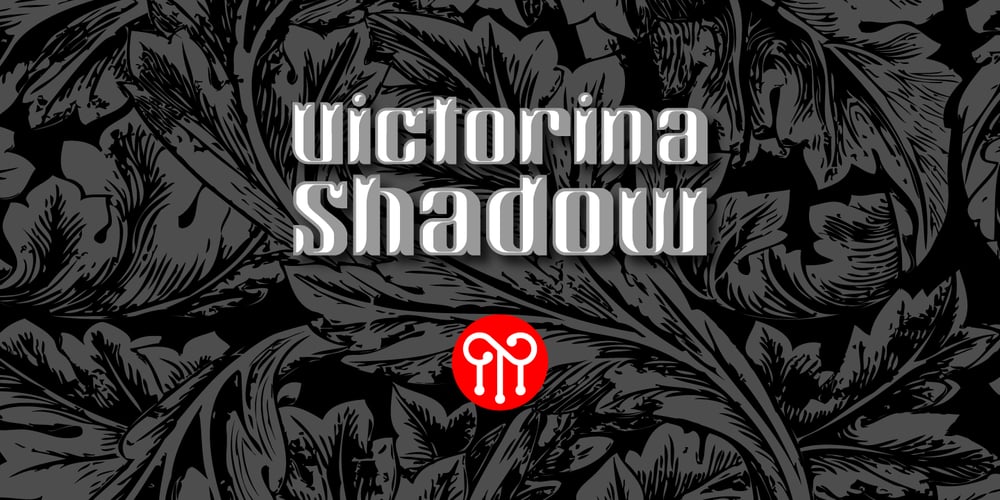
Victorina Black Shadow Font Family was designed by John Moore and published by John Moore Type Foundry. Victorina Black Shadow contains 2 styles and family package options. Victorina Shadow is a fantasy sans letter display, inspired by the Victorian letters whose stylistic influence dominated the scene graph of the nineteenth and Twentieth century. Victorina has a perfect structure rigorous geometry. Victorina comes in several versions, in this set you will find the Shadow version in black and italic to complement the varied repertoire of styles of Victorina family, besides providing small caps and ornaments. Victorina Shadow let to work fine fantasy headlines when they overlap in layers of different styles. Victorina Shadow is a letter designed to recreate, with a contemporary vision, the spirit of those days of the industrial revolution and the early days of modernism.